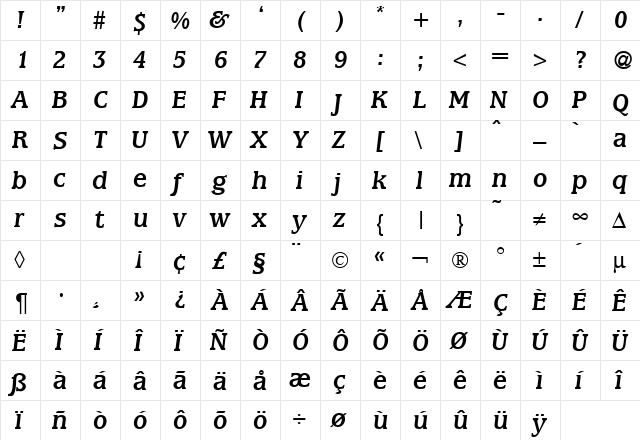
MarburgMedium RegularItalic
Design Context for MarburgMedium Typeface
MarburgMedium takes a measured approach to typography — its balanced proportions and neutral character make it a reliable workhorse for both digital and print work. The dynamic lean of this cut emphasises speed and emphasis in any layout.
Pro Tip: Use MarburgMedium for emphasis, pull quotes, and subheadings where its slanted energy can add rhythm to the layout.